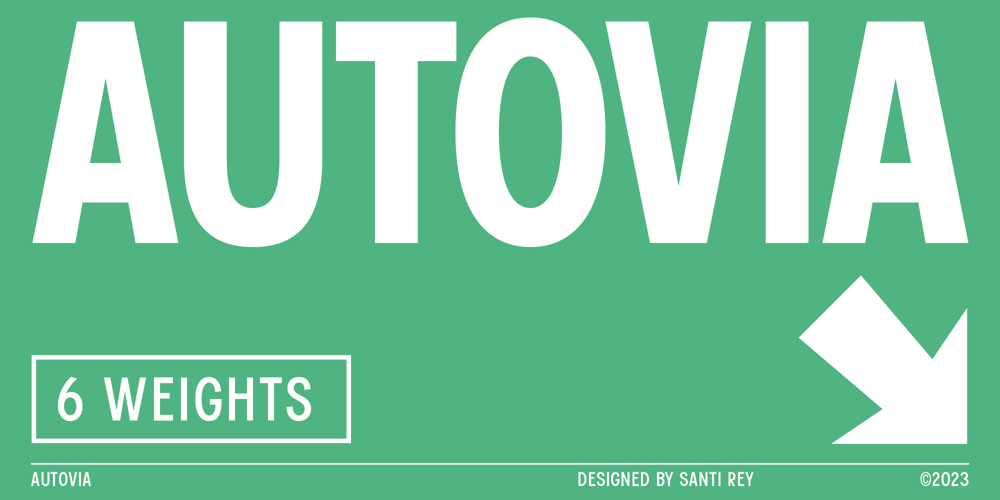
Autovia Font Family was designed by Santi Rey and published by Santi Rey. Autovia contains 6 styles and family package options. Autovia is a condensed sans-serif based on the typeface created for the US Highway signs in the 50s.Autovia comes in 6 weights. Has more than 350 glyphs and 8 stylistic sets, and supports all the Latin based languages.A new and more casual addition for the Highway fonts sub-genre ideal for big headlines.